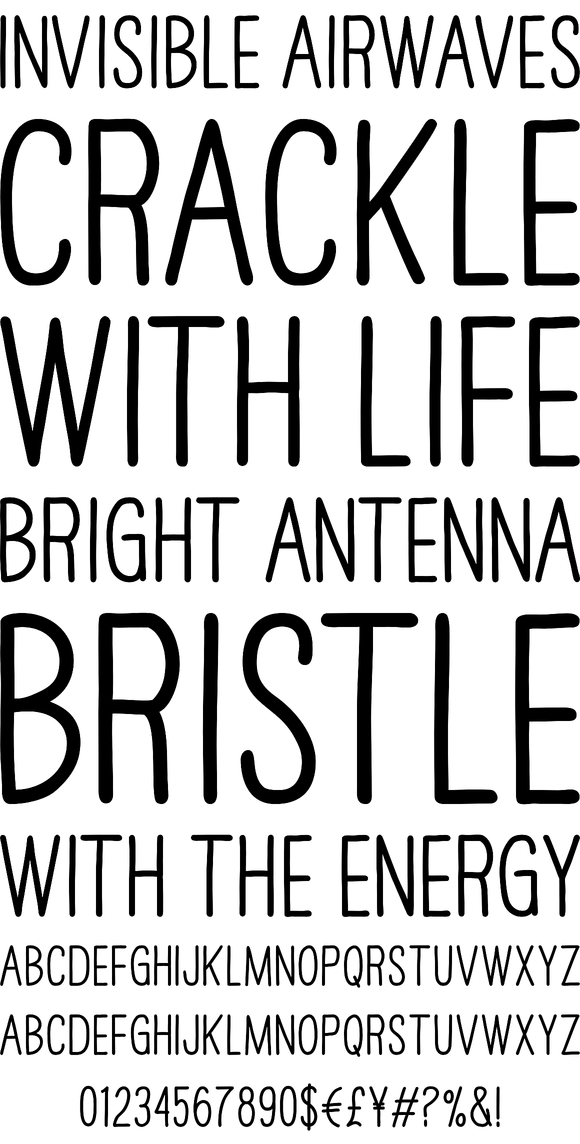
Have A Nice Day
Have A Nice Day is a handwritten font created by Cindy Kinash. This font features two font styles (Basic/Italic) and comes in three weights (Light/Regular/Bold). These two font styles can be used together as one unique and fun font!
This font also includes a set of fun hand drawn ornaments like smiley faces, flowers, leaves, insects, frames, captions, desserts, food, clouds, and catchwords that will surely brighten your day! Enjoy!